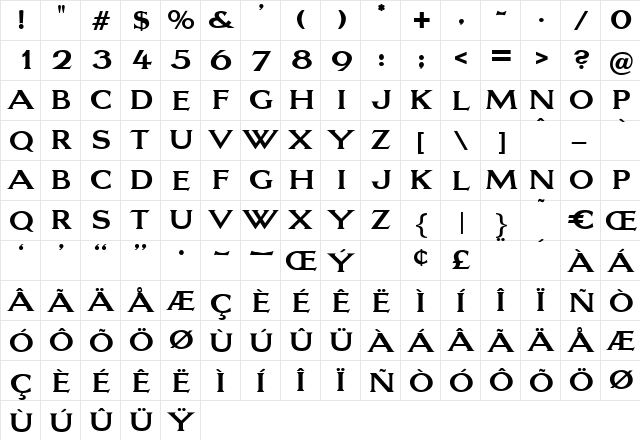
LaguneBold Regular
Design Context for LaguneBold Typeface
LaguneBold offers clean, dependable letterforms without strong stylistic allegiance, making it a practical choice for designers who need flexibility. The heavy weight commands attention and anchors typographic hierarchies.